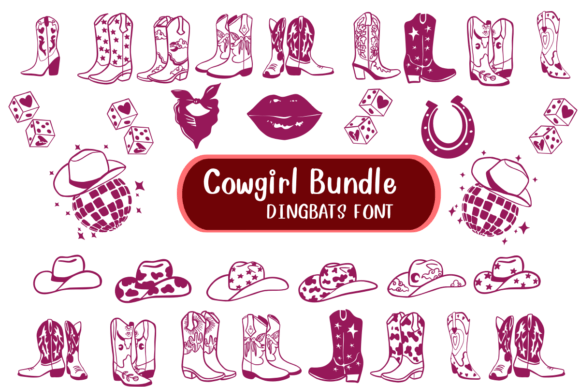
Cowgirl Bundle Font: Add a Touch of Western Flair to Your Designs
The Cowgirl Bundle font is a fun and playful dingbat font that features cute images of cowgirl boots and hats. This font is perfect for adding a Western flair to your designs, making it great for decorating invitations, posters, or any project that needs a touch of cowgirl style.
What is the Cowgirl Bundle Font?
The Cowgirl Bundle font is a unique and creative dingbat font that includes a collection of cowgirl-themed images, such as boots, hats, and other Western-inspired icons. These images can be used to add a playful and whimsical touch to your designs, making them perfect for a variety of projects, including party invitations, posters, and social media graphics.
Features of the Cowgirl Bundle Font
The Cowgirl Bundle font has several features that make it a great addition to your font collection. Some of its key features include:
- Cute and playful images: The font features a range of cute and playful images, including cowgirl boots, hats, and other Western-inspired icons.
- Easily scalable: The font is easily scalable, making it perfect for use in a variety of projects, from small social media graphics to large posters.
- Fun and playful vibe: The font has a fun and playful vibe, making it perfect for adding a touch of personality to your designs.
Uses for the Cowgirl Bundle Font
The Cowgirl Bundle font is a versatile font that can be used in a variety of projects. Some of the most popular uses for the font include:
- Party invitations: The font is perfect for creating fun and playful party invitations, especially for Western-themed parties.
- Posters and flyers: The font can be used to create eye-catching posters and flyers for events, such as concerts, festivals, and sales.
- Social media graphics: The font is great for creating social media graphics, such as Facebook posts, Instagram stories, and Twitter headers.
- Stationery and gift tags: The font can be used to create fun and playful stationery and gift tags, perfect for adding a personal touch to gifts and correspondence.
Tips for Using the Cowgirl Bundle Font
Here are a few tips for using the Cowgirl Bundle font in your designs:
- Use it sparingly: While the font is fun and playful, it can be overwhelming if used too much. Use it sparingly to add a touch of personality to your designs.
- Pair it with other fonts: The font pairs well with other fonts, such as serif and sans-serif fonts. Experiment with different font combinations to find the perfect look for your design.
- Experiment with colors: The font looks great in a variety of colors, from bold and bright to pastel and soft. Experiment with different colors to find the perfect look for your design.
The Cowgirl Bundle font is a fun and playful dingbat font that features cute images of cowgirl boots and hats. This font is perfect for adding a Western flair to your designs, making it great for decorating invitations, posters, or any project that needs a touch of cowgirl style. With its easily scalable images, compatibility with most design software, and fun and playful vibe, the Cowgirl Bundle font is a great addition to any font collection.